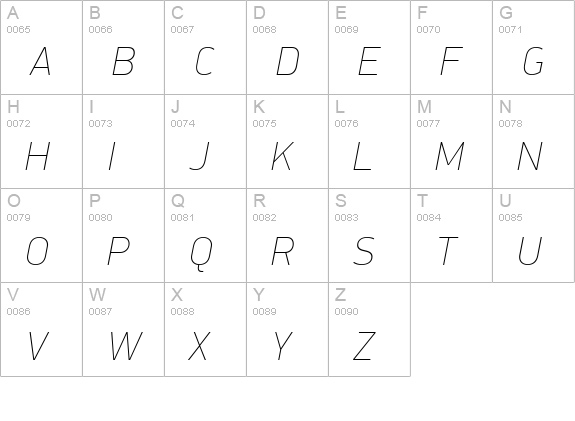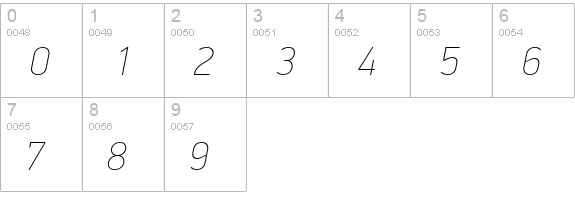
PFDinDisplayPro-ExtraThinItalic is a sleek and elegant font that exudes sophistication and modernity. Its thin and italic design adds a touch of grace and style to any design project. This font is perfect for creating a sense of refinement and luxury in your work. The best part? PFDinDisplayPro-ExtraThinItalic is completely free to download at FontsMarket.com. You can easily enhance your projects with this beautiful font without having to worry about any costs. Whether you're working on a branding project, website design, or any other creative endeavor, this font is sure to elevate your work with its delicate and sophisticated appearance. Don't miss out on the opportunity to add PFDinDisplayPro-ExtraThinItalic to your font collection for free. Download it today and see how it can bring a touch of elegance to your designs.